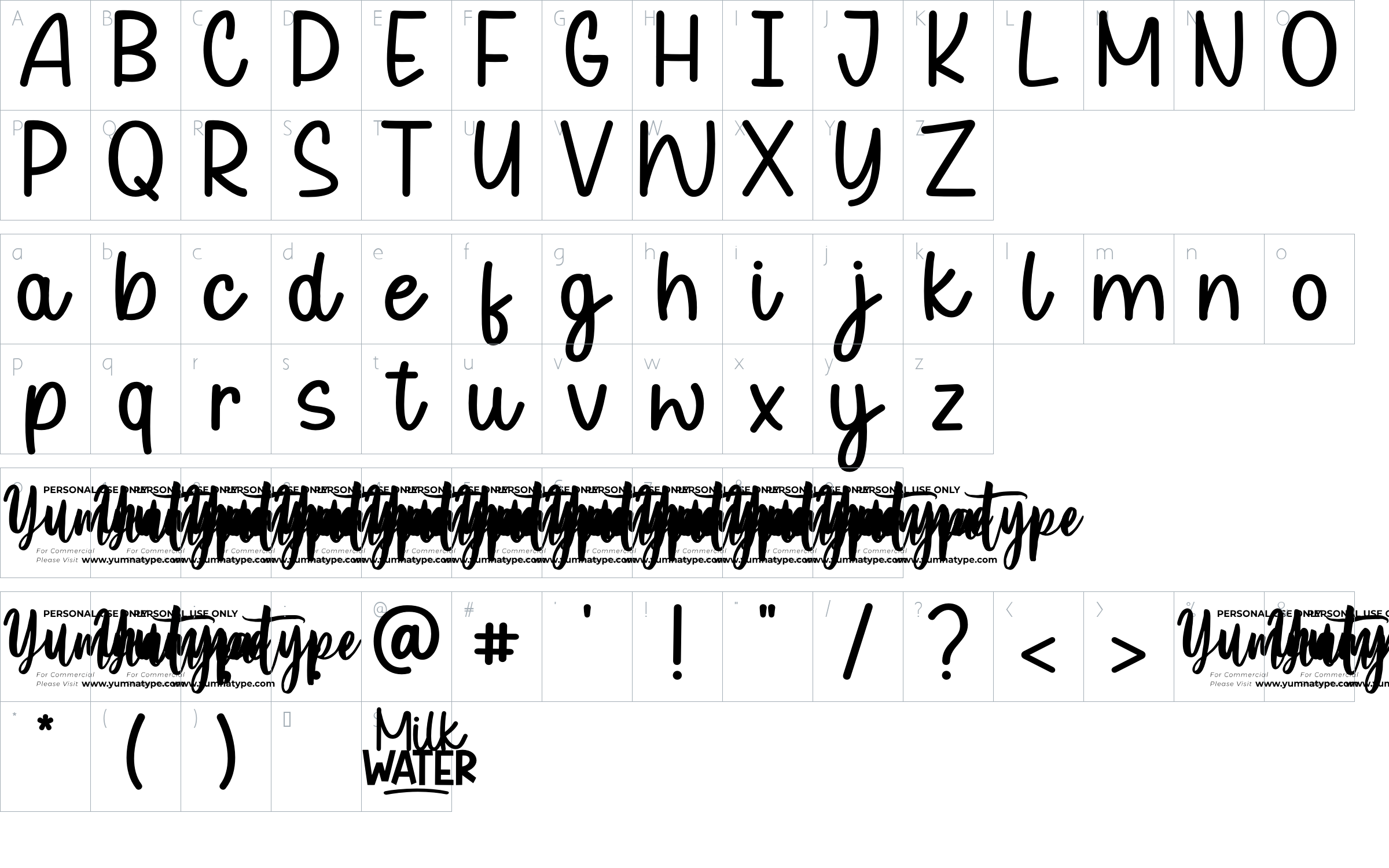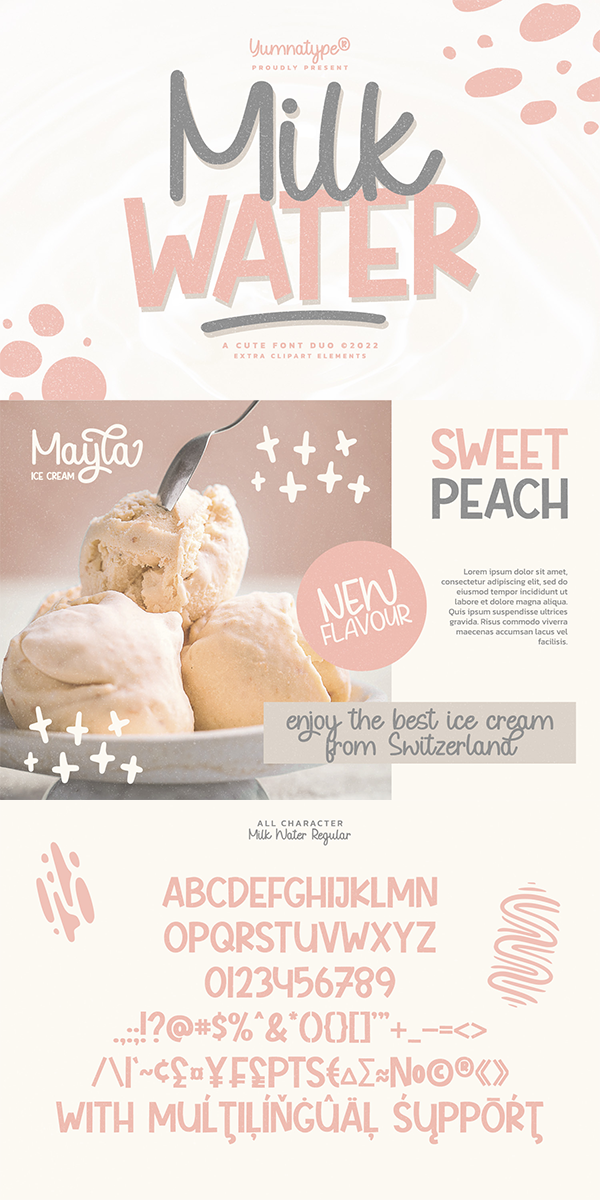
Milk Water Font
About Milk Water
Milk Water, a beautiful font duo. Through the display font, Milk Water generates friendly energy as well as slightly playful aesthetic while the script font style allows us to get modern and elegant looks. The result of the combination is warm and cute at the same time. As special extra, we give you many illustrations that you can use whatever you want.
-Uppercase and lowercase